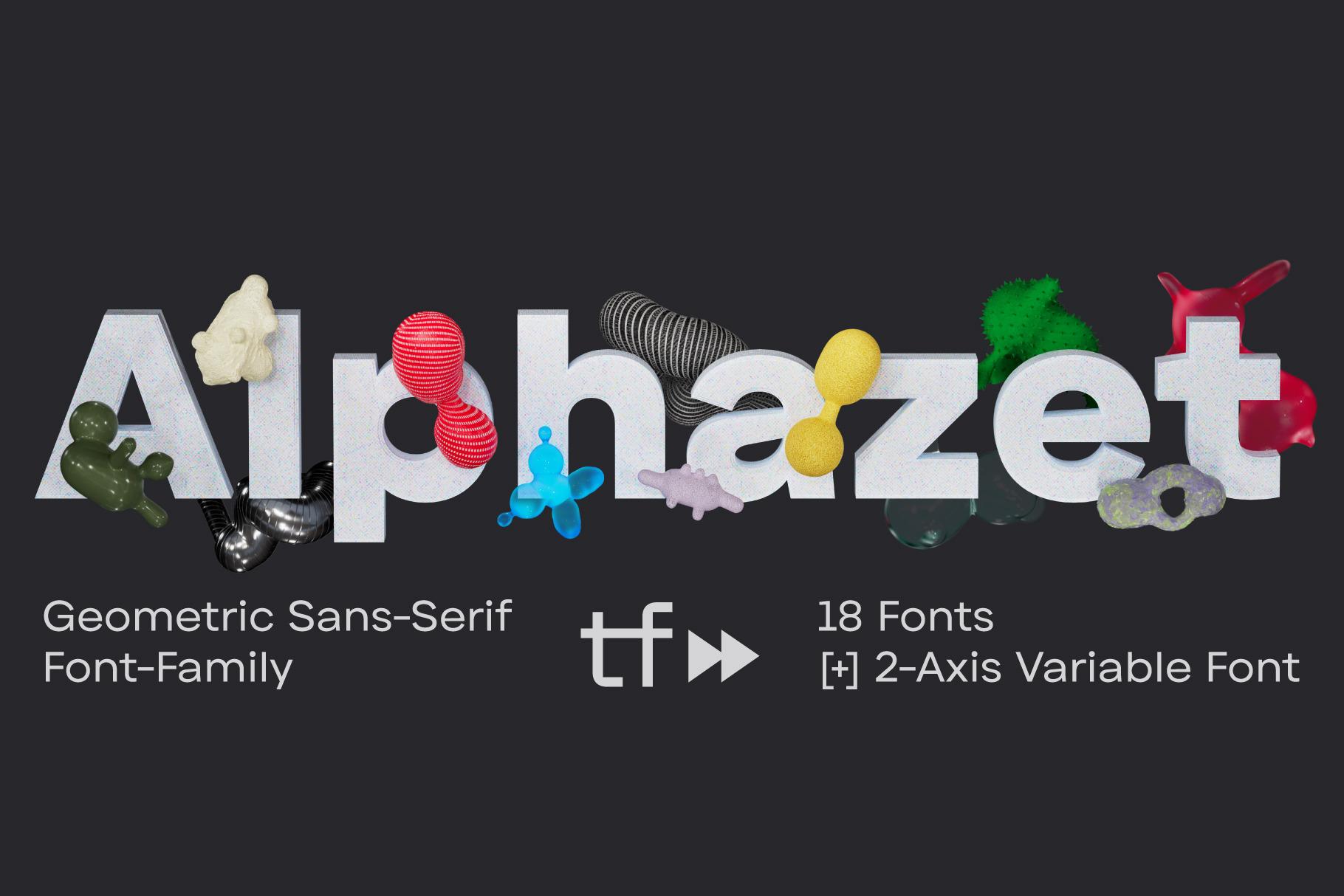
Alphazet Font-Family
Alphazet is a geometric sans-serif typeface developed in collaboration with designer Luboslav Boyanov. It combines minimal stroke contrast with a high x-height, contributing to a modern aesthetic and enhanced readability. The typeface’s monolithic appearance and slightly wider proportions create a solid, confident impression that is effective in both extended text and prominent headlines.
Rooted in pure geometric shapes, Alphazet emphasizes functionality. Its tall x-height, combined with short ascenders and descenders, ensures efficient use of space. The design maintains optical consistency with balanced glyphs and avoids overly distinctive forms, resulting in a uniform texture across lines of text.
Alphazet features minimal stroke contrast, a high x-height, and slightly wider letterforms. Subtle diagonal angles in horizontal strokes of letters like e, t, f, and k provide visual interest while preserving a cohesive appearance. The typeface maintains conventional geometric sans-serif forms, providing a consistent and clear reading experience.
Alphazet includes 9 weights (Thin to Black), each accompanied by matching oblique italics. The typeface is available in standard OTF, TTF, and web formats and as a single variable font file. Alphazet supports over 220 languages, covering Extended Latin, Cyrillic, and Greek scripts. OpenType features include ligatures, stylistic sets, contextual alternates, tabular figures, fractions, ordinals, and case-sensitive forms. Usage & Applications
Alphazet’s design is suitable for a variety of uses. The typeface's tall x-height and good spacing make it easy to read, so it’s perfect for body text. It also has a strong, balanced look that works well in headlines and posters.